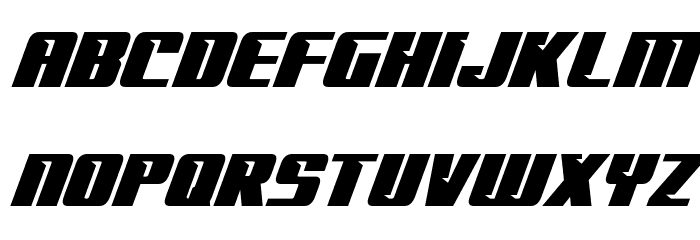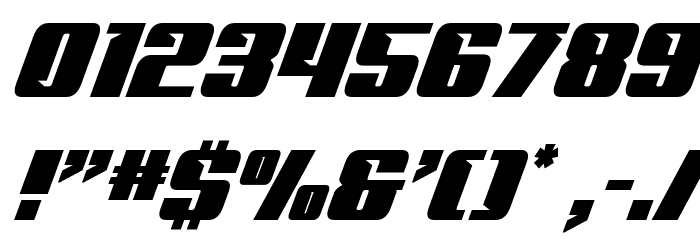
'89 Speed Affair Super-Italic Font
This font exudes a dynamic and energetic style, characterized by its bold and italicized letterforms. The slanted design gives a sense of speed and movement, making it ideal for projects that require a modern and edgy look. The uppercase and lowercase letters maintain a consistent slant, enhancing the overall cohesiveness of the typeface. The numbers and special characters are designed with the same boldness and slant, ensuring uniformity across all elements. The font's thick strokes and sharp angles contribute to its high contrast, making it stand out in any design. Its unique style is perfect for creating impactful headlines, logos, and branding materials that demand attention.
A bold, italicized font with a dynamic, speedy style.
- Proposed Projects: Ideal for sports branding, automotive advertisements, dynamic posters, and modern logos.